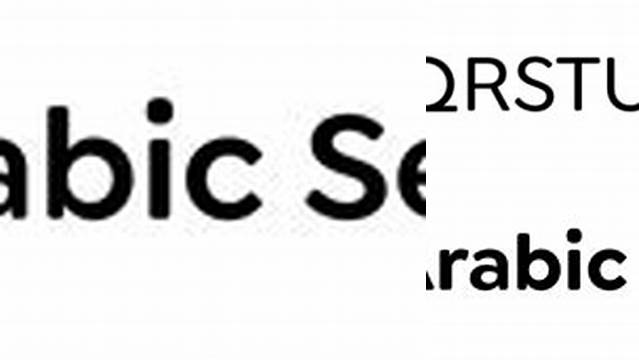
Siwa Arabic Regular Font: Free Download Guide
Hey guys! Looking to get your hands on the Siwa Arabic Regular font? You've come to the right place! This font is super popular for its elegant and legible design, making it perfect for a wide range of projects. Whether you're working on branding, web design, or print materials, the Siwa Arabic Regular font can add that special touch you're looking for. This guide will walk you through everything you need to know about this fantastic font, where to download it for free, and how to make the most of it in your designs. So, let's dive in and explore the world of the Siwa Arabic Regular font!
1. What is Siwa Arabic Regular Font?
Okay, so what exactly is the Siwa Arabic Regular font? Well, it's a beautifully crafted typeface that's designed specifically for Arabic script. It falls into the category of regular fonts, which means it's highly readable and versatile. The Siwa Arabic Regular font has a clean, modern look that makes it suitable for both body text and headlines. Its balanced letterforms and consistent weight ensure readability across different sizes and media. The Siwa Arabic Regular font is more than just a typeface; it's a tool that empowers designers to communicate effectively and beautifully in Arabic. Whether you are designing a website, creating marketing materials, or working on a personal project, choosing the Siwa Arabic Regular font can make a significant difference in how your message is perceived.
1.1. Key Features of Siwa Arabic Regular Font
The Siwa Arabic Regular font stands out due to several key features that make it a favorite among designers. First and foremost, its legibility is exceptional. The font is designed to be easy on the eyes, even when used in long paragraphs or smaller sizes. This makes the Siwa Arabic Regular font ideal for body text in books, articles, and websites. Another important feature is its versatility. The font works well in a variety of contexts, from formal documents to creative designs. Its clean and modern appearance lends itself well to branding, web design, and print materials. Furthermore, the Siwa Arabic Regular font often includes a comprehensive character set, supporting all the necessary glyphs for Arabic script, including diacritics and ligatures. This ensures that your text will display correctly, no matter what words you use. Finally, many versions of the Siwa Arabic Regular font are available under different licenses, including free for personal use and commercial options. This accessibility makes it a popular choice for designers with varying budgets. In summary, the Siwa Arabic Regular font is a high-quality typeface that combines readability, versatility, and comprehensive character support, making it a valuable addition to any designer’s toolkit.
1.2. Design Principles Behind Siwa Arabic Regular
The design principles behind the Siwa Arabic Regular font are rooted in a blend of tradition and modernity. The font designers often draw inspiration from classical Arabic calligraphy, incorporating the elegance and fluidity of traditional scripts. However, they also aim to create a typeface that is suitable for contemporary use, which means clean lines and a focus on legibility in digital environments. One of the core principles is consistency; the Siwa Arabic Regular font maintains a uniform stroke weight and letter spacing, creating a harmonious visual rhythm. This consistency is crucial for readability, especially in longer texts. Another key principle is simplicity. The Siwa Arabic Regular font avoids unnecessary ornamentation, focusing instead on the essential forms of the Arabic letters. This minimalist approach contributes to the font's modern aesthetic and makes it highly adaptable to different design styles. Furthermore, designers consider the balance between the individual characters and the overall texture of the text. The Siwa Arabic Regular font is crafted to ensure that words and sentences flow smoothly, creating a pleasant reading experience. By adhering to these design principles, the Siwa Arabic Regular font achieves a timeless quality that resonates with both traditionalists and modernists alike.
2. Why Choose Siwa Arabic Regular Font?
So, why should you choose the Siwa Arabic Regular font over other Arabic fonts? There are several compelling reasons! First and foremost, the Siwa Arabic Regular font is incredibly versatile. It works well in a wide range of design contexts, from formal documents to creative projects. Whether you're designing a website, creating marketing materials, or working on a personal project, the Siwa Arabic Regular font can adapt to your needs. Another key advantage is its readability. The font is designed to be easy on the eyes, even in small sizes or long paragraphs. This makes it an excellent choice for body text in books, articles, and websites. Additionally, the Siwa Arabic Regular font has a modern and elegant appearance. It strikes a perfect balance between traditional Arabic calligraphy and contemporary design, making it suitable for a wide audience. Plus, many versions of the Siwa Arabic Regular font are available for free download, at least for personal use, which means you can try it out without any financial commitment. Finally, the Siwa Arabic Regular font often comes with a comprehensive character set, ensuring that you have all the necessary glyphs and ligatures for accurate and beautiful Arabic typography. Choosing the Siwa Arabic Regular font means opting for a typeface that combines functionality, aesthetics, and accessibility.
2.1. Versatility in Design Projects
The versatility of the Siwa Arabic Regular font is one of its biggest selling points. It's a true workhorse that can handle a multitude of design projects with ease. Think about it – you can use the Siwa Arabic Regular font for everything from designing a sleek, modern website to crafting elegant print materials like brochures and posters. Its clean lines and balanced letterforms make it suitable for both headlines and body text, giving you a consistent and professional look across your designs. If you're working on branding, the Siwa Arabic Regular font can help you create a strong visual identity that resonates with your target audience. Its classic yet contemporary feel makes it a great choice for businesses and organizations that want to project an image of sophistication and reliability. In digital contexts, the Siwa Arabic Regular font shines thanks to its excellent readability on screens. Whether it's used on a website, in an app, or in a digital document, this font ensures that your text is clear and legible. Overall, the Siwa Arabic Regular font’s versatility makes it a valuable asset for any designer looking for a reliable and aesthetically pleasing Arabic typeface.
2.2. Readability and Legibility
When it comes to typography, readability and legibility are paramount, and the Siwa Arabic Regular font excels in both these areas. Legibility refers to how easy it is to distinguish individual letters, while readability is about how comfortably one can read blocks of text. The Siwa Arabic Regular font is designed with careful attention to both these aspects. Its clean, well-defined letterforms make it easy to identify each character, even in smaller sizes. The consistent stroke weight and spacing contribute to its legibility, preventing letters from blurring together. Readability is enhanced by the font's balanced proportions and the smooth flow of the text. The Siwa Arabic Regular font doesn't tire the eyes, making it suitable for long-form content like articles, books, and reports. In digital environments, where screen resolution can sometimes affect text clarity, the Siwa Arabic Regular font maintains its readability remarkably well. Its design ensures that it looks crisp and clear on a variety of devices and screen sizes. Whether you're designing a website, creating a document, or crafting a presentation, the Siwa Arabic Regular font’s focus on readability and legibility ensures that your message is communicated effectively and effortlessly.
2.3. Aesthetic Appeal
Beyond its practical advantages, the Siwa Arabic Regular font boasts a significant aesthetic appeal. It strikes a harmonious balance between traditional Arabic calligraphy and contemporary design sensibilities. This makes the Siwa Arabic Regular font a versatile choice for projects that require both elegance and modernity. The font's clean lines and uncluttered forms give it a sophisticated and timeless quality. It avoids overly ornate details, focusing instead on the essential shapes of the Arabic letters. This minimalist approach contributes to its visual clarity and makes it adaptable to a wide range of design styles. The Siwa Arabic Regular font has a certain warmth and approachability that makes it inviting to readers. It’s not overly formal or intimidating, making it suitable for both casual and professional contexts. Whether you're designing a logo, creating a website, or crafting a print advertisement, the Siwa Arabic Regular font can help you convey a sense of style and sophistication. Its aesthetic appeal lies in its simplicity, balance, and its ability to seamlessly blend traditional and modern elements.